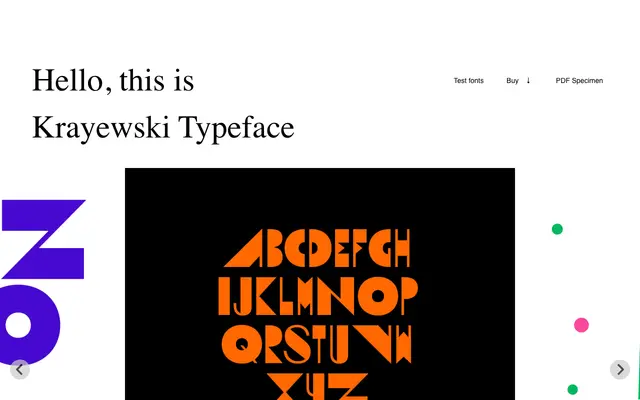
Krayewski
A single-style geometric headline face drawn from a lettering sketch by Polish designer Andre de Krayewski, released by Maciej Połczyński in 2024.
Based on a lettering sketch printed on the cover of 'Moje Okładki', a 2014 book collecting Andre de Krayewski's designs, the typeface carries a specific historical reference point rather than being a purely abstract exercise in geometry. It covers Latin and Cyrillic scripts across 300 glyphs, with OpenType features for contextual alternates and a stylistic set. The uppercase-led design sits well in editorial headlines and cultural branding with Central and Eastern European scope.
Described explicitly as a geometric headline typeface with a single style, based on lettering sketches with strong geometric construction suited only to display use.